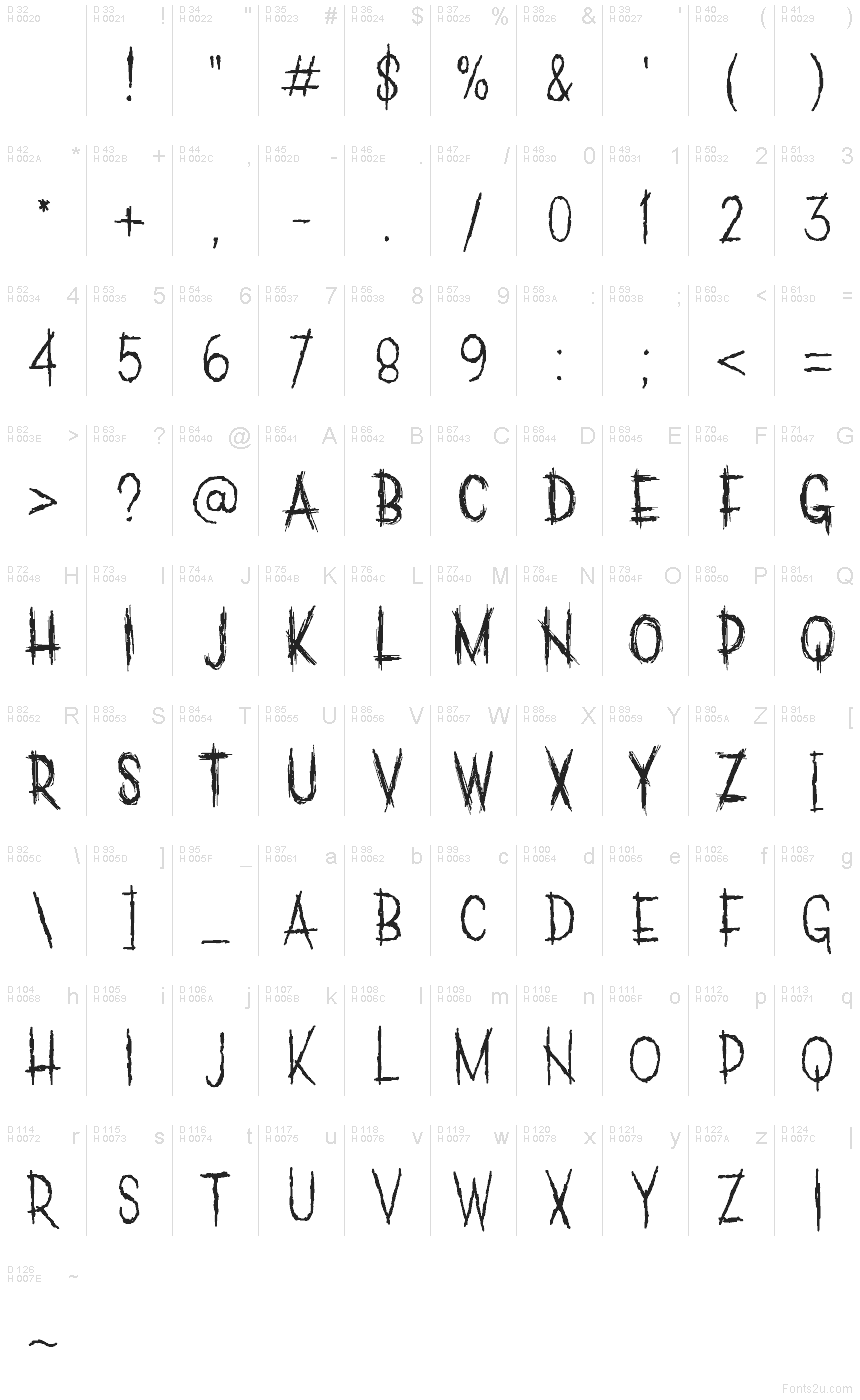
Witchwoode font by Sinister Fonts is a free rough scary display font. Built around splintered, twig-like strokes and scratchy edges, it looks carved into bark-equal parts bramble and claw mark. The letters feel wiry and windblown, with jittery rhythm and slightly uneven proportions that inject instant tension. That texture does the heavy lifting: you get menace without extra graphics.
Using Witchwoode, headlines snap with a thorny silhouette that shines on horror posters, haunted attraction flyers, Halloween merch, escape room branding, gothic book covers, and game titles. This free font thrives large and high-contrast; try generous tracking for an eerie, airy hiss. Pair with a clean condensed sans for body copy so the scratches stay the star.
Witchewoode Font by Chad Savage. Created 2024, hand-lettered.
A horror display font